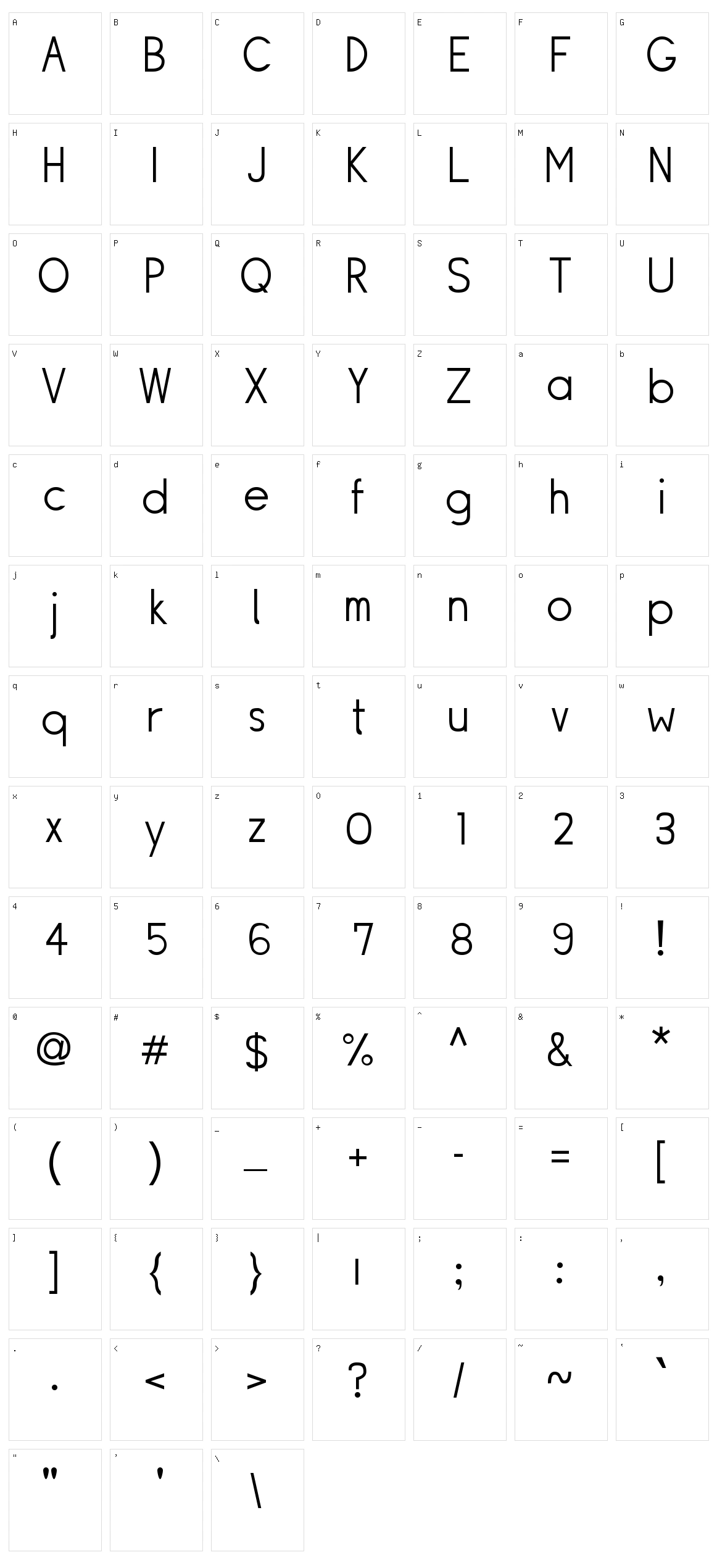
The free font Siple is carefully designed by Tomoyuki "Tee-Wat" Watanabe, showcasing a thoughtful balance of creativity and usability and falls under the Sans serif font style. When you download the ZIP file, it contains only 62.92 KB of font files, making it lightweight and quick to download. Please review the license details below to understand permitted usage and distribution rights. If license information is not available, we recommend using this font for personal projects only or contacting the author directly for commercial usage permissions.